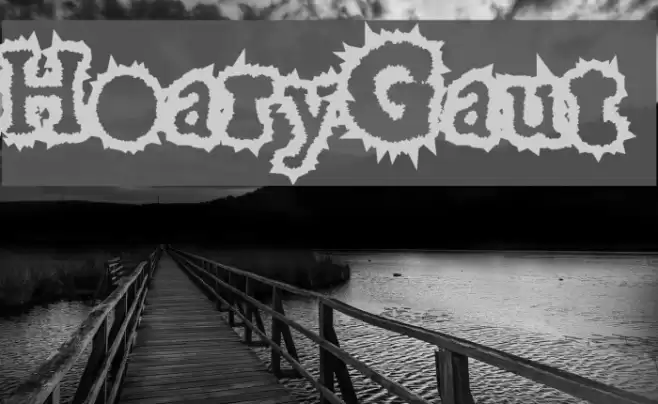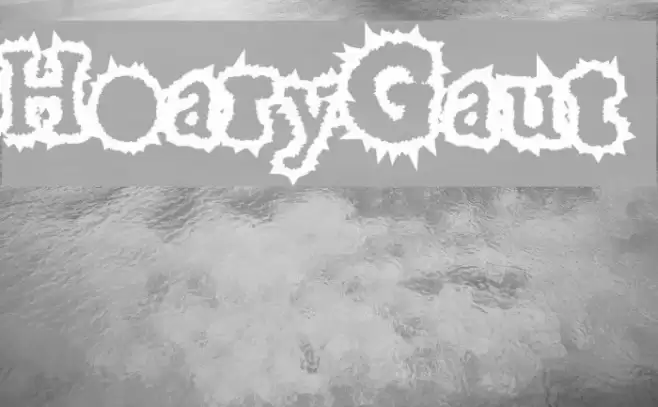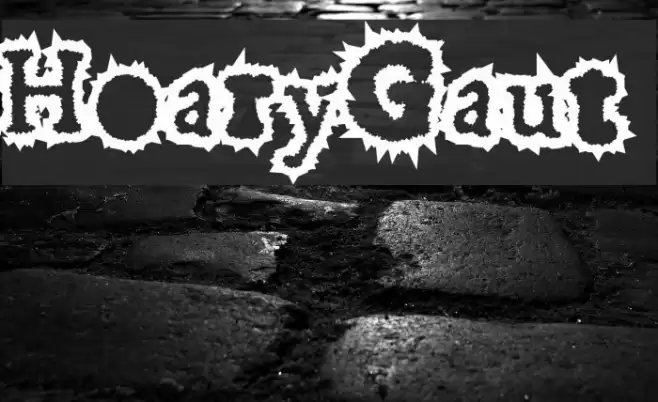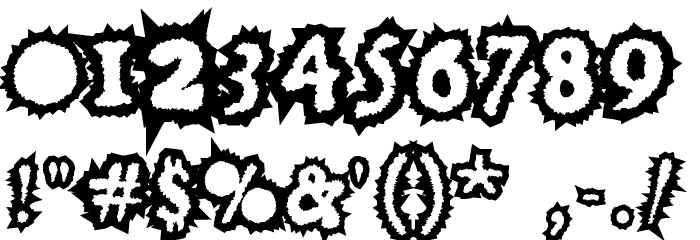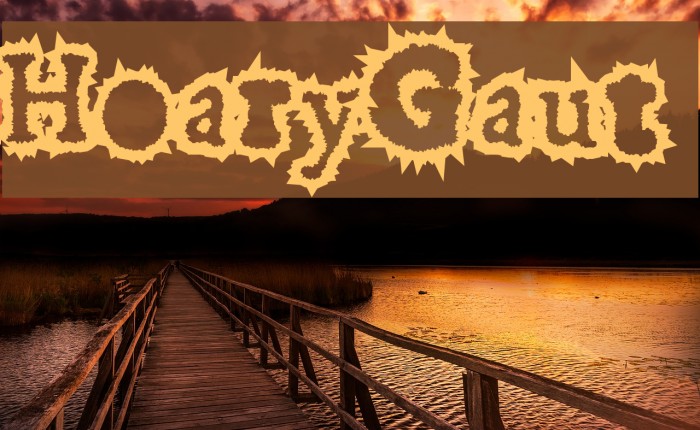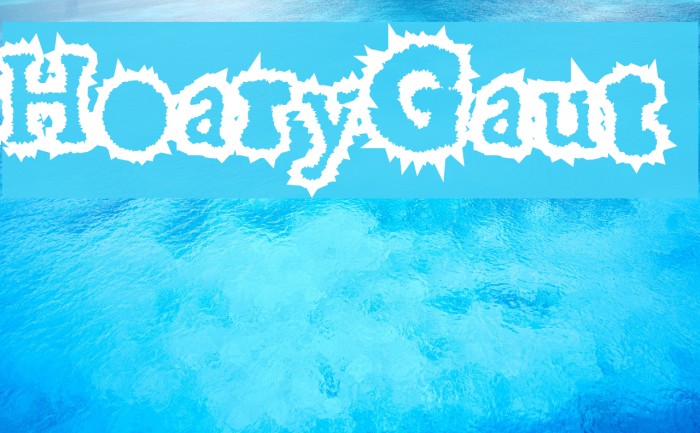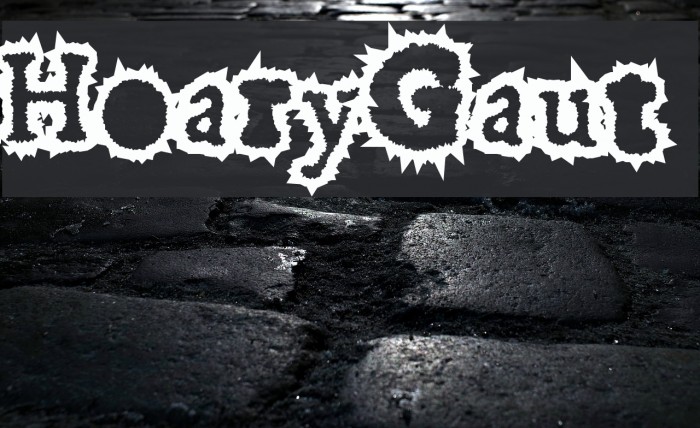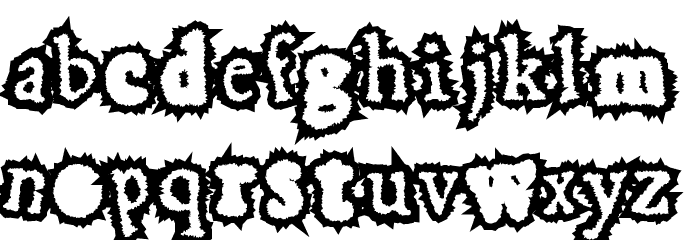
HoaryGaut Font
HoaryGaut Description
This font features a bold, jagged design that gives it a dynamic and energetic appearance. Each character is surrounded by sharp, irregular edges that create a sense of movement and intensity. The uppercase and lowercase letters maintain a consistent style, with the uppercase being slightly larger and more pronounced. Numbers and special characters follow the same jagged pattern, ensuring uniformity across all elements. The font's unique style makes it stand out, making it suitable for projects that require a bold and eye-catching typeface.
A bold, jagged font with sharp, irregular edges for a dynamic look from Outline fonts.
- Proposed Projects: Ideal for Halloween-themed designs, edgy posters, album covers, and video game graphics.